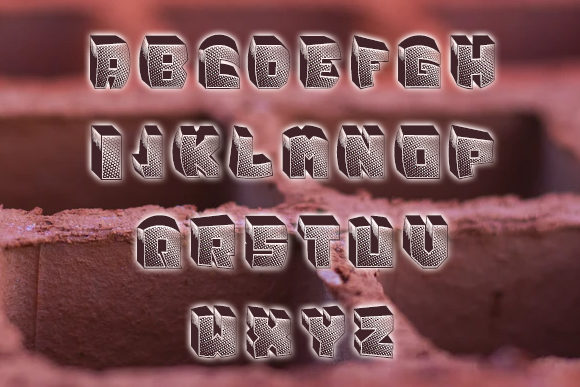
Brick Font: The Ultimate 3D Display Font for Your Design Needs
Are you tired of using the same old fonts for your designs? Look no further! Introducing Brick Font, an awesome 3D display font that will add a touch of excitement to your creations. With its unique and playful design, Brick Font is perfect for designers, crafters, and anyone looking to add some personality to their work.
What is Brick Font?
Brick Font is a 3D display font that mimics the look of bricks, complete with a textured and rugged appearance. Its distinctive design makes it stand out from other fonts, adding a fun and creative element to any design. Whether you’re working on a logo, poster, or social media graphic, Brick Font is sure to grab attention.
Key Features of Brick Font
- Unique 3D Design: Brick Font features a one-of-a-kind 3D design that gives your text a brick-like appearance.
- Textured and Rugged: The font’s textured and rugged design adds a tactile feel to your designs, making them more engaging and interactive.
- Endless Variations: With Brick Font, you can experiment with different styles, colors, and effects to create endless variations of your design.
How to Use Brick Font in Your Designs
Using Brick Font in your designs is easy! Here are a few tips to get you started:
- Pair with Bold Colors: Brick Font looks great when paired with bold, bright colors. Try using it with a contrasting color to make your text pop.
- Experiment with Textures: Brick Font’s textured design makes it perfect for experimenting with different textures and effects.
- Use for Headings and Titles: Brick Font is perfect for headings and titles, adding a touch of personality to your designs.
Why Designers and Crafters Love Brick Font
Brick Font has quickly become a favorite among designers and crafters, and for good reason. Here are a few reasons why:
- Unique and Creative: Brick Font offers a unique and creative way to add personality to your designs.
- Versatile: Brick Font can be used in a variety of designs, from logos and posters to social media graphics and more.
In conclusion, Brick Font is an awesome 3D display font that is perfect for designers, crafters, and anyone looking to add some personality to their work. With its unique and playful design, Brick Font is sure to grab attention and add a touch of excitement to your creations. So why wait? Download Brick Font today and start exploring its endless variations!
- Q: What is Brick Font? A: Brick Font is a 3D display font that mimics the look of bricks, complete with a textured and rugged appearance.